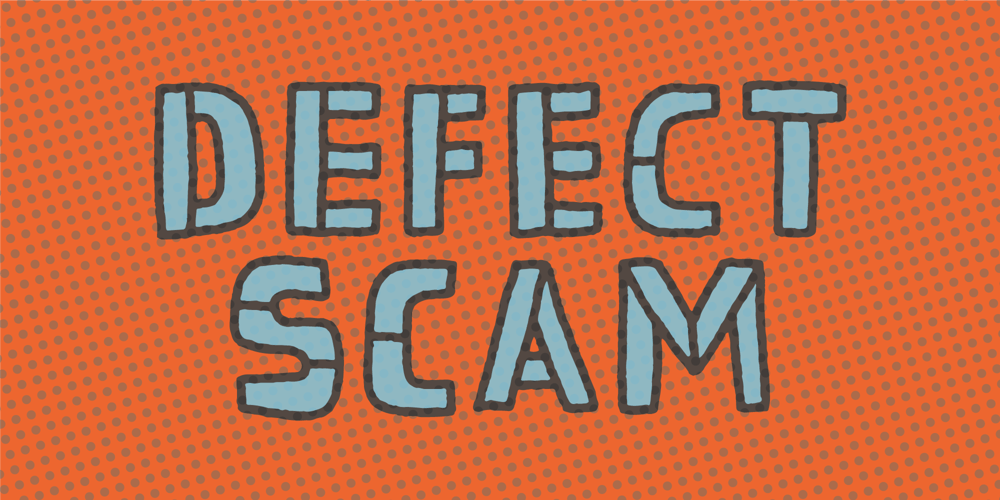
Defect Scam
Defect Scam font
Defect Scam Font Family was designed by Jakob Fischer and published by PizzaDude.dk. Defect Scam contains 3 styles and family package options. Defect Scam could easily have been a name for a punk band. But it’s not – it’s the name of my stencil wannabe font. But, it was inspired by a combination of some punkband’s LP cover and the vibes of that genre of music – but not overdoing it by making an obvious punk font!Well, you get 4 different versions of each letter in the Regular, Black and Fill versions, as well as multilingual support!